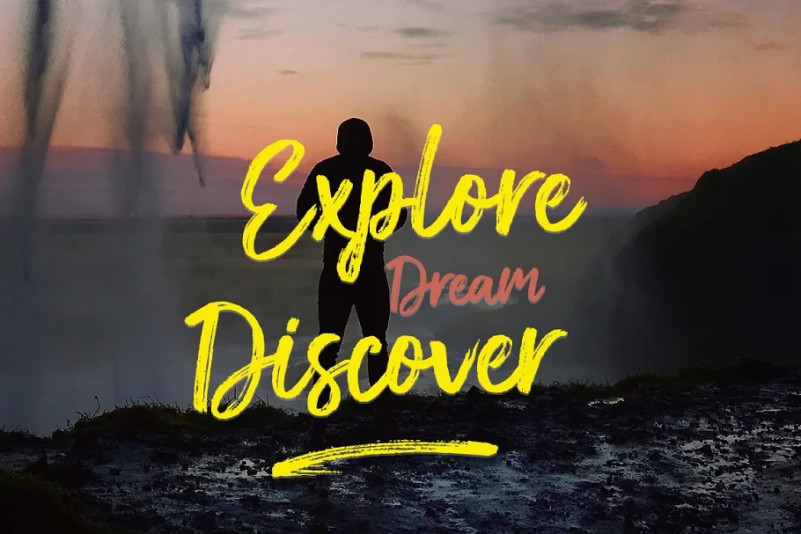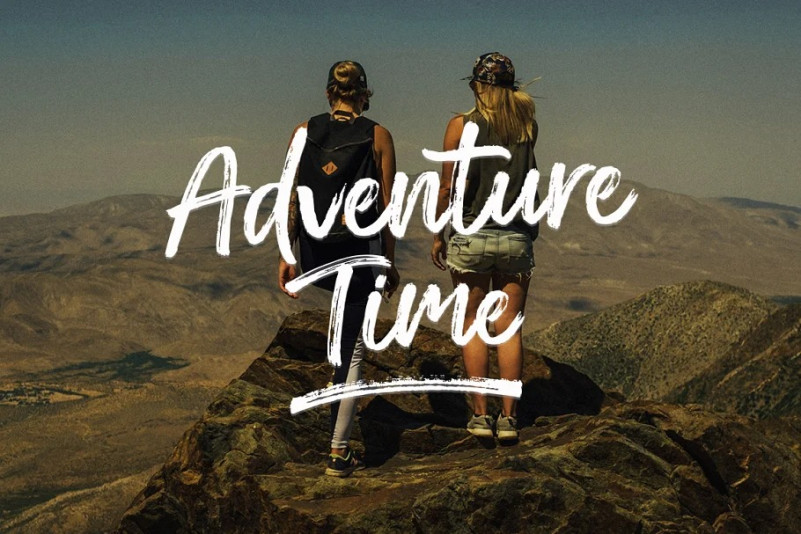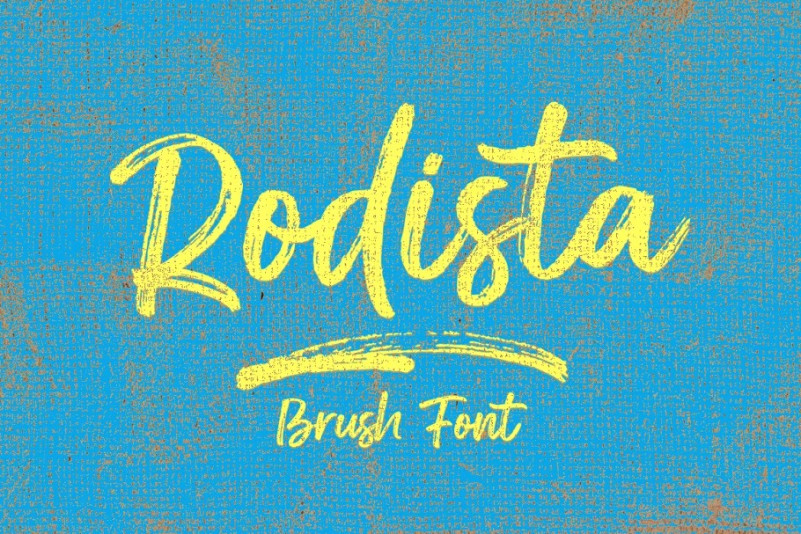
Rodista Font
Rodista Font is a super casual hand brushed script with detailed brush stroke texture, and a quirky, Can be used for various purposes. such as the title, signature, letterhead, signage, labels, newsletters, posters, logos, correspondence, wedding invitations, badges, etc. Rodista Font international Support for a review of most Western languages ​​included.